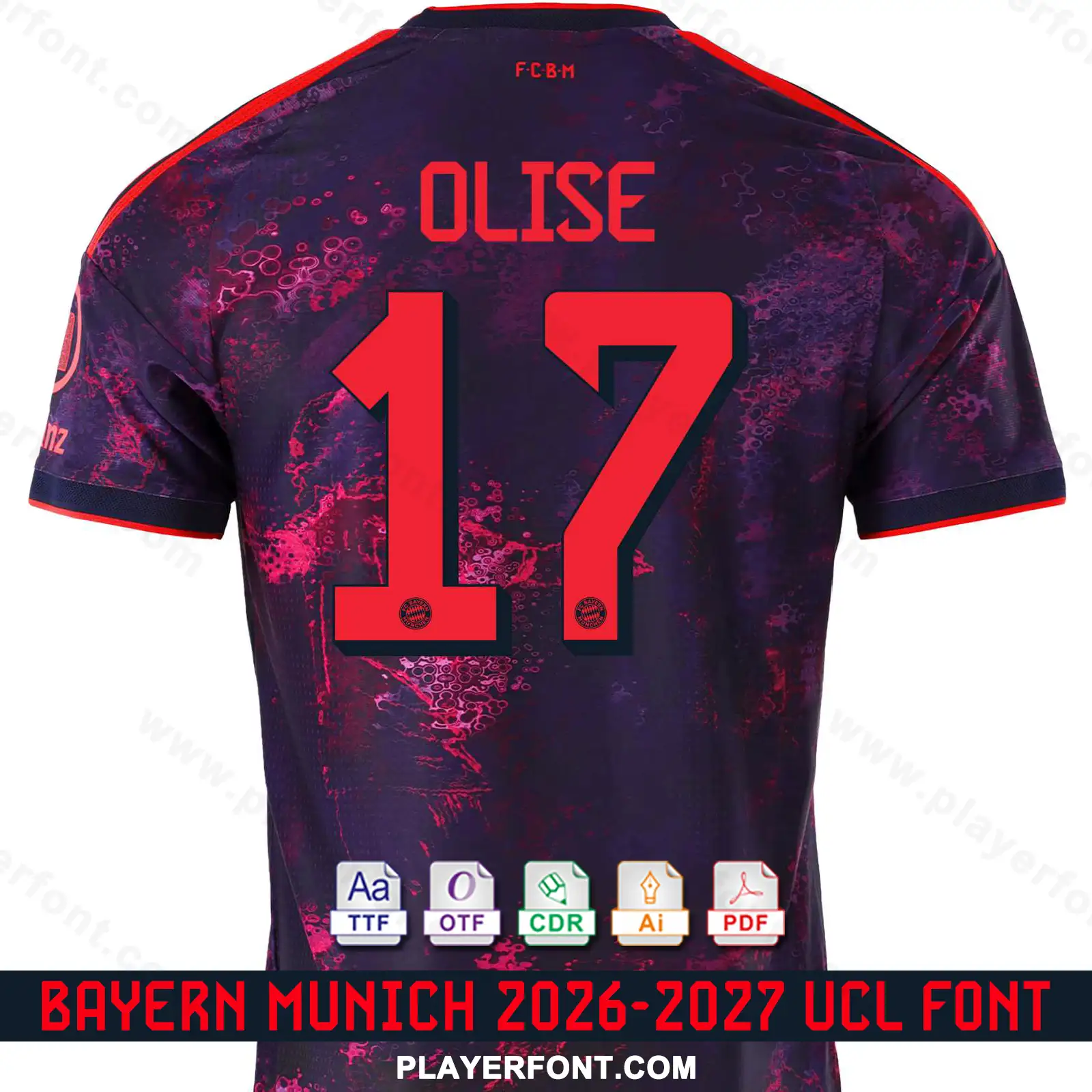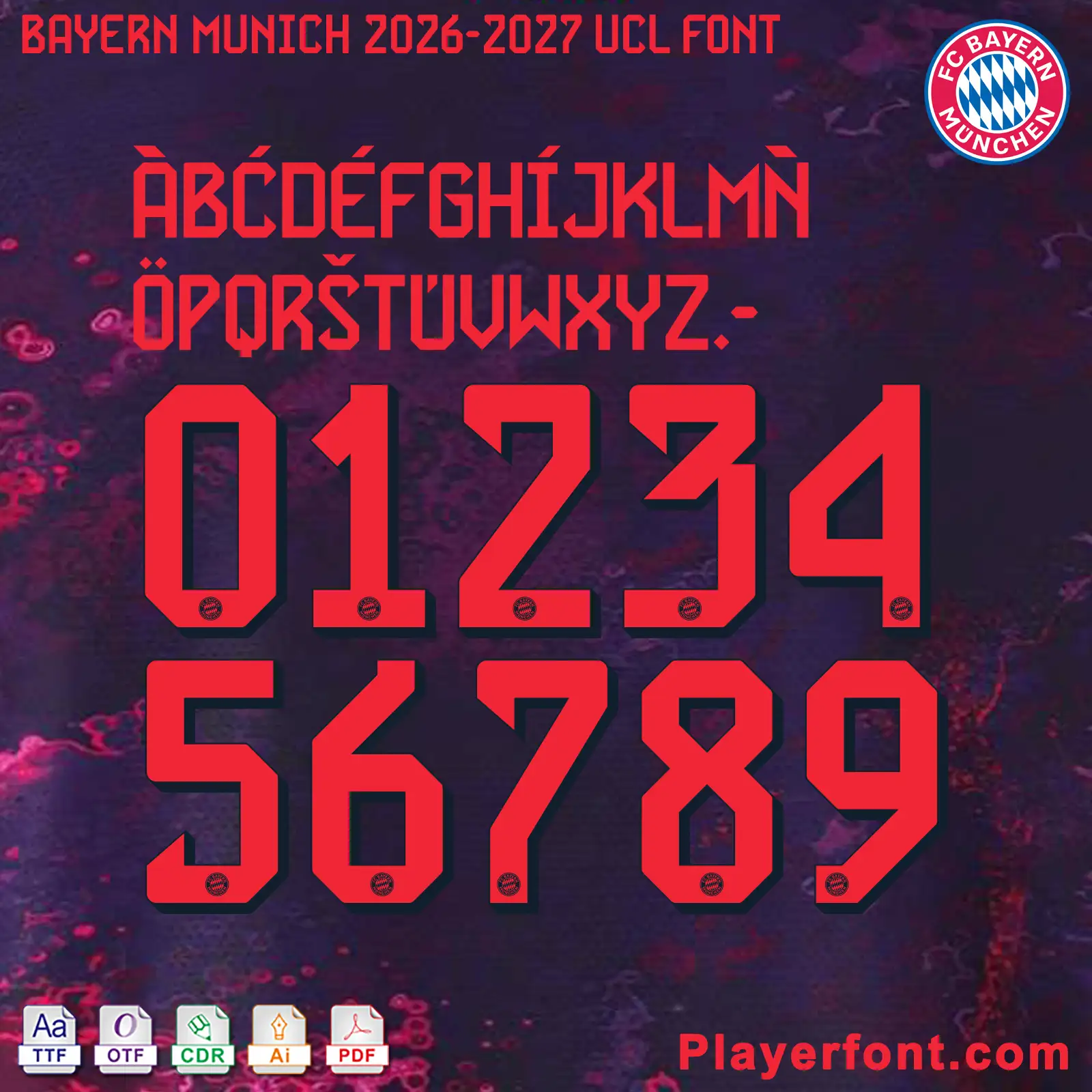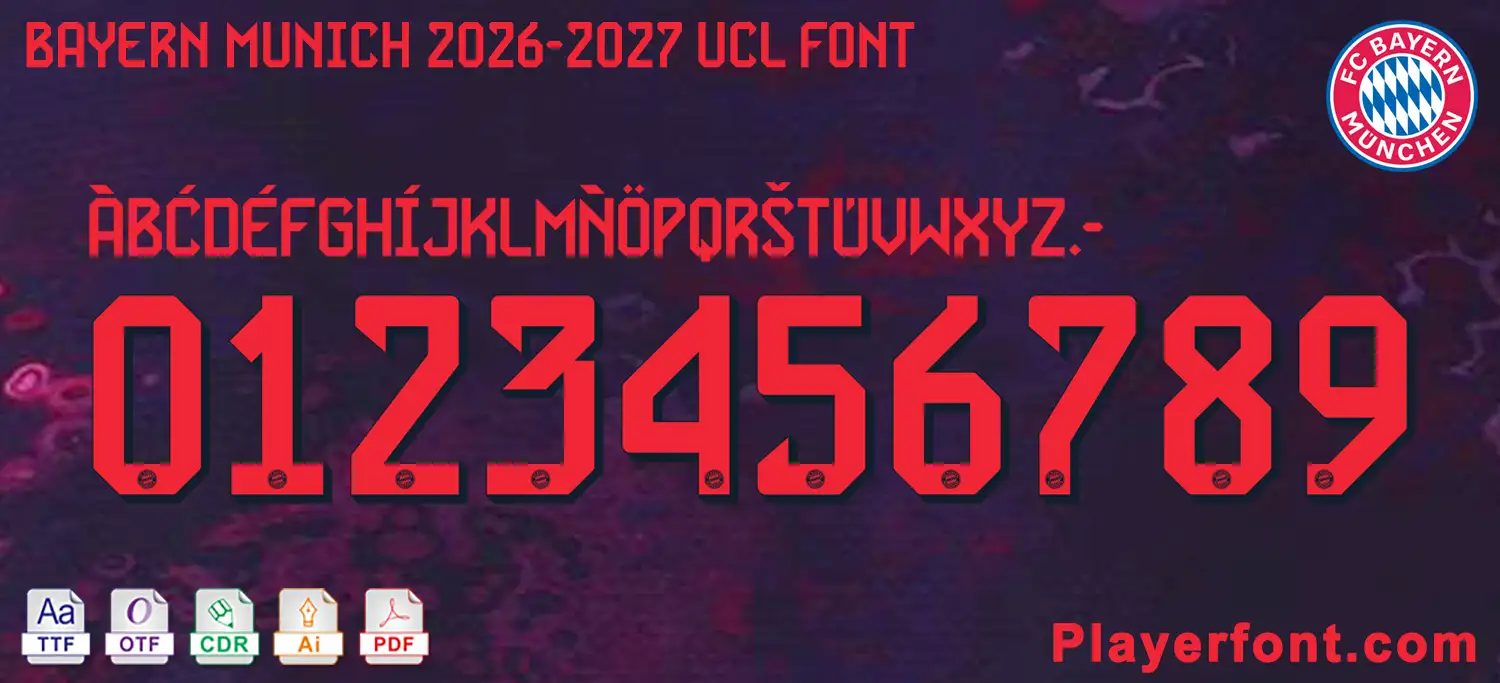
Download the premium FC Bayern Munich 2026-2027 UCL Font Kit today! This complete typography pack includes high-quality TTF, OTF, AI, CDR, and PDF vector files, fully compatible with vector design software and sports apparel printing. Features futuristic geometric block lettering and vibrant red numbers styled with a bold dark drop-shadow effect and the official FC Bayern München crest embedded at the base of each digit. Perfect for kit designers, vinyl plotting, and Michael Olise / Bayern Munich fans.
Horizontal vector template banner layout of FC Bayern Munich 2026-2027 UCL font alphabet and numbers string.
Horizontal Vector Preview Banner for the FC Bayern Munich UCL 2026-2027 Font
Elevate your sports jersey mockups, football custom graphics, and vector apparel printing projects with the high-quality FC Bayern Munich 2026-2027 UCL Font Download. Masterfully engineered by Playerfont.com, this high-performance typography set replicates the official-style numbers and distinct angular lettering featured on the pitch for Bayern’s UEFA Champions League campaign.
Key Typography Features & Character List:
This typography pack is fully optimized to support international player rosters and diverse numbering layouts:
• Futuristic Geometric Block Lettering: Contains a sharp, high-tech uppercase character set, custom diagonal cut letters, numbers (0-9), hyphens, and periods.
• Advanced International Accent Support: Includes an expansive set of diacritics spanning Basic Latin and Latin-1 Supplement (such as À, B́, Ć, D́, É, F́, Ǵ, H́, Í, M̀, Ñ, Ö, Š, Ť, Ù, and Ü) ensuring flawless rendering for European cup stars (such as Michael Olise) and international tournament naming requirements.
• Authentic Visual Details: The jersey numbers feature bright red solid bodies with a distinct offset dark navy drop shadow along the right and bottom edges, paired with the circular FC Bayern München crest centered at the base.
Design Feature Bright Red Body with Dark Offset Drop Shadow & FCB Crest Base